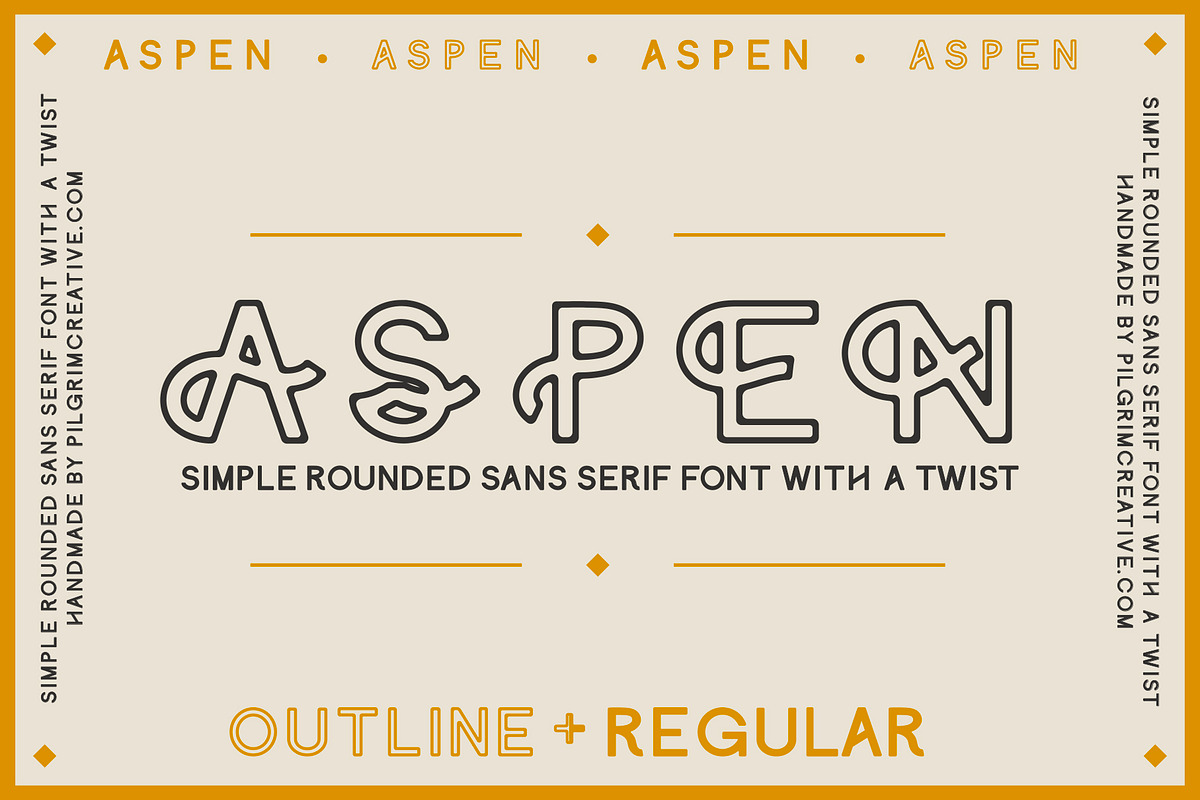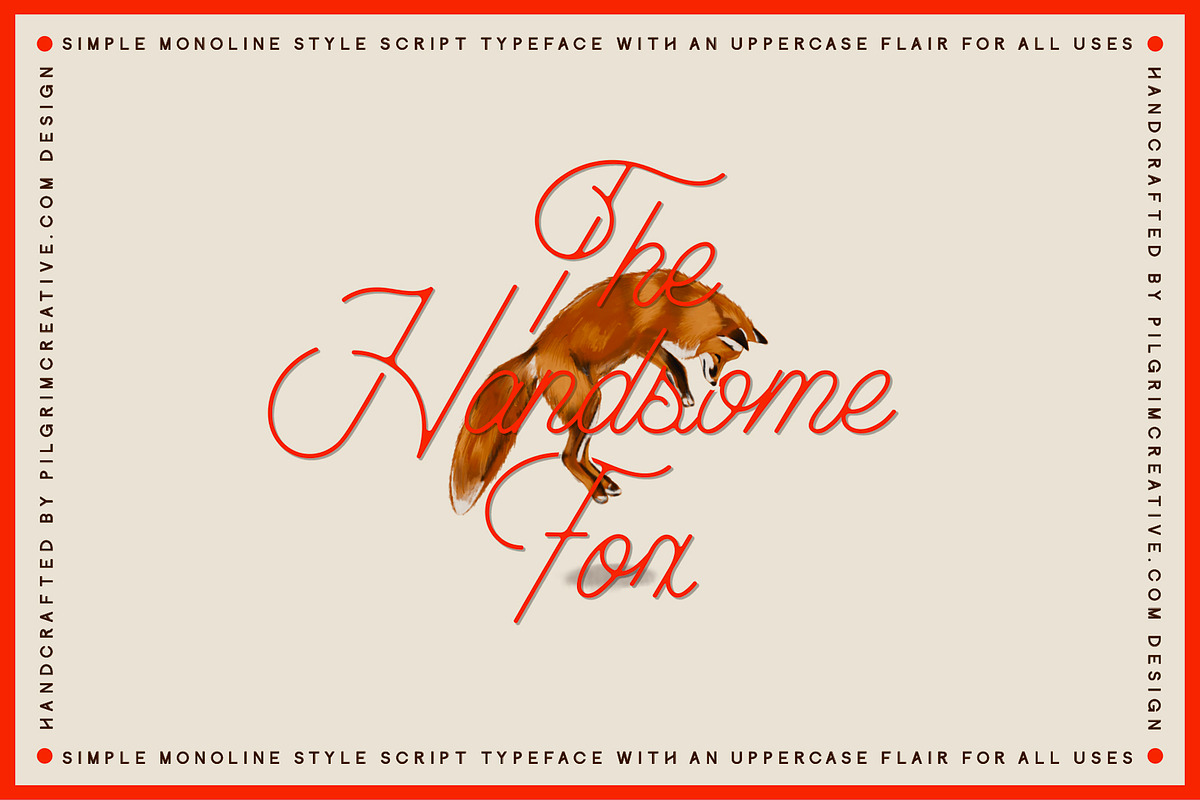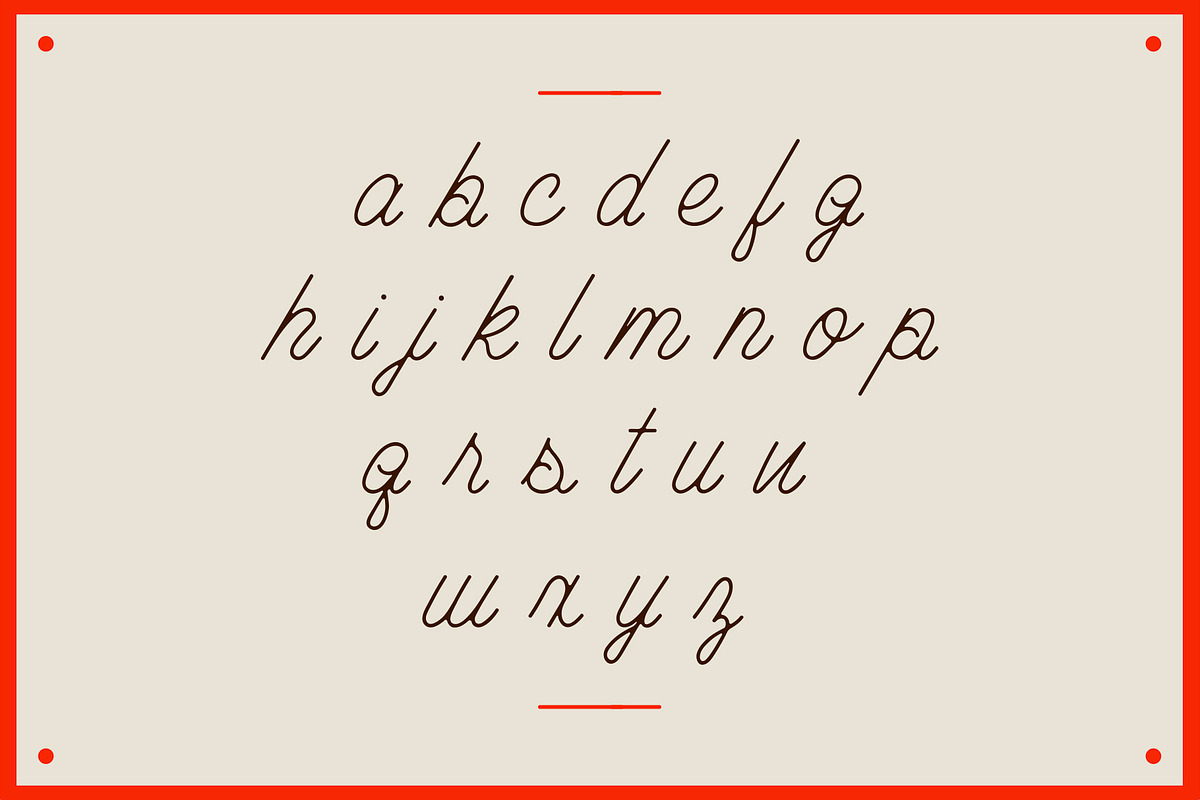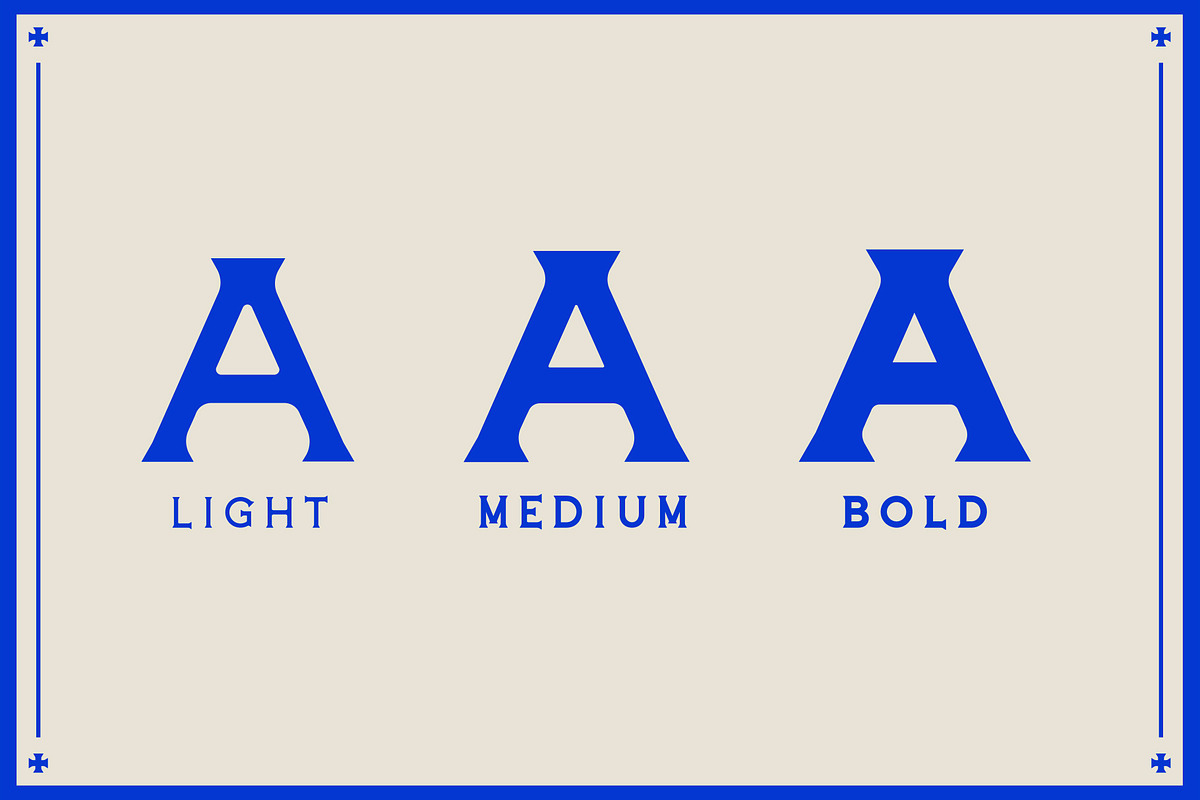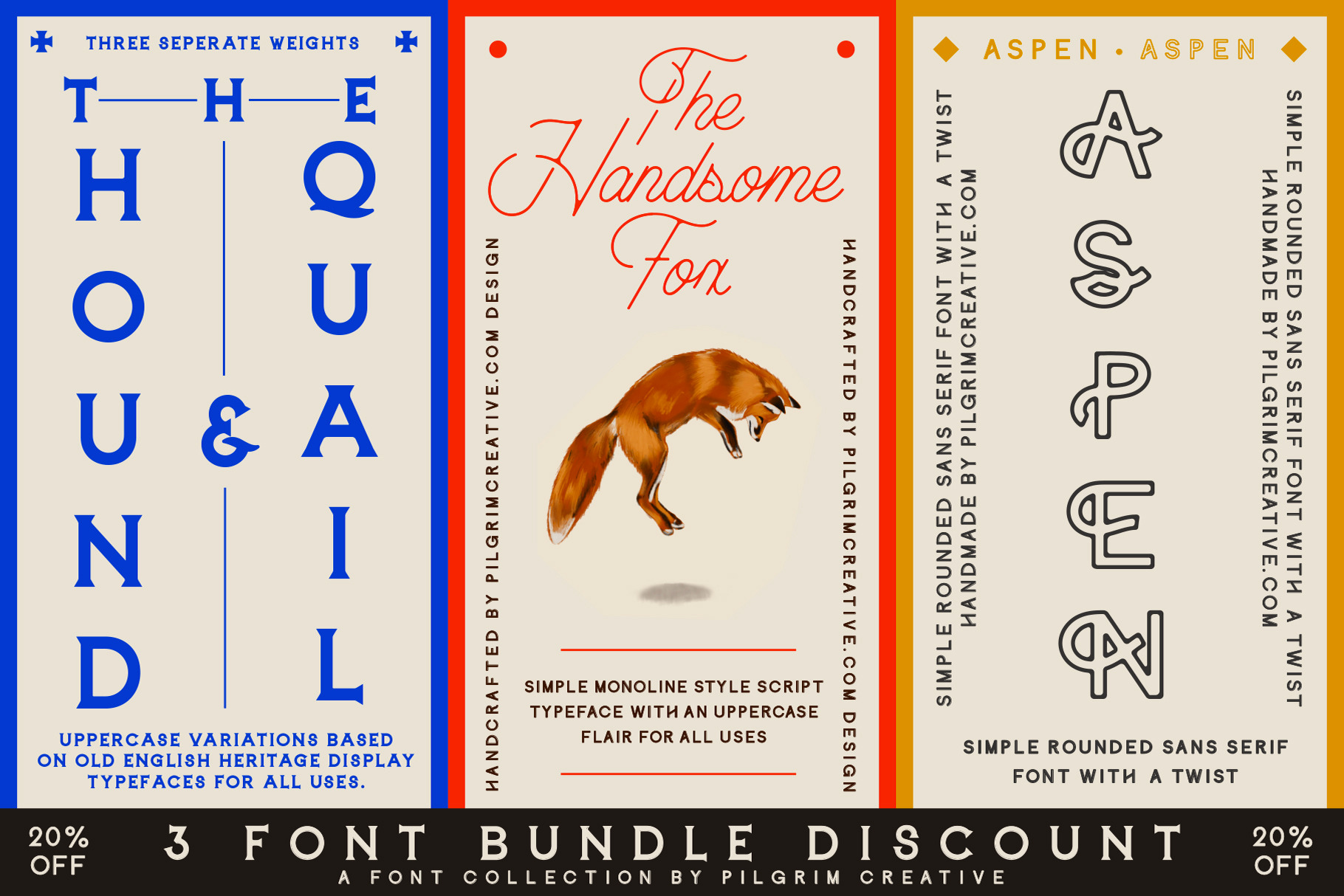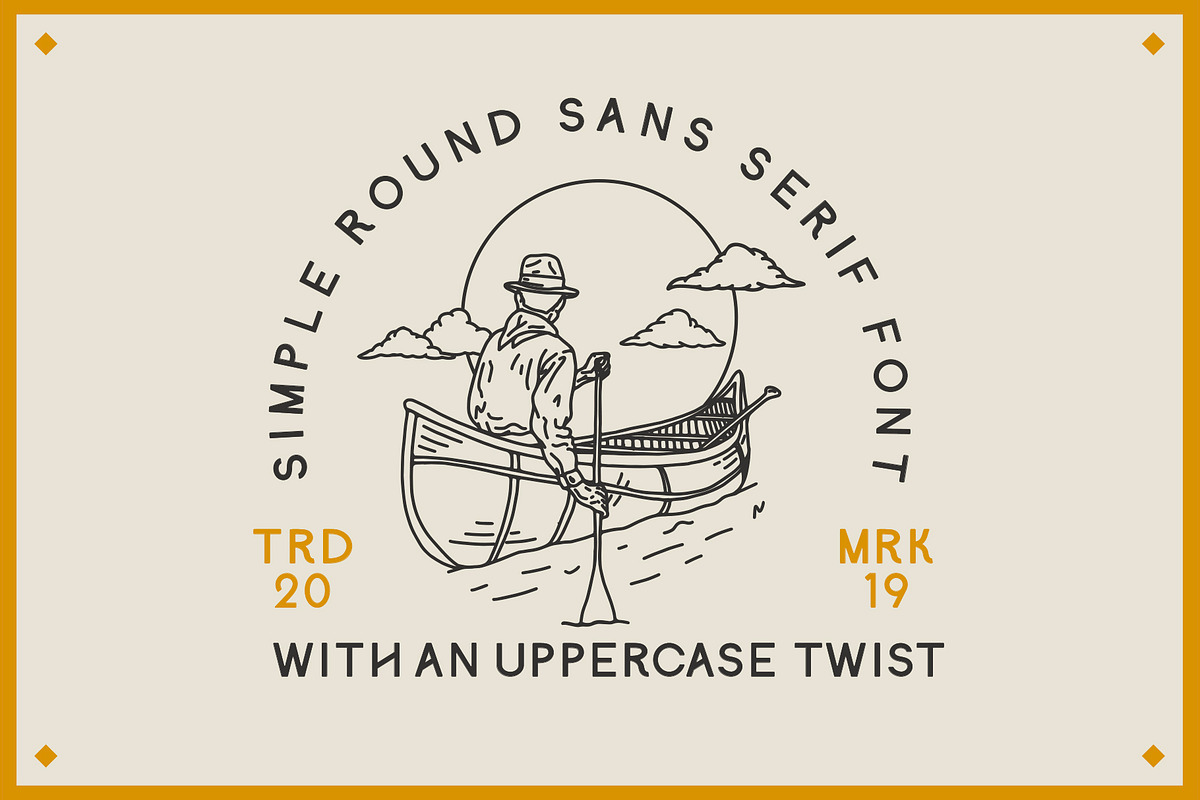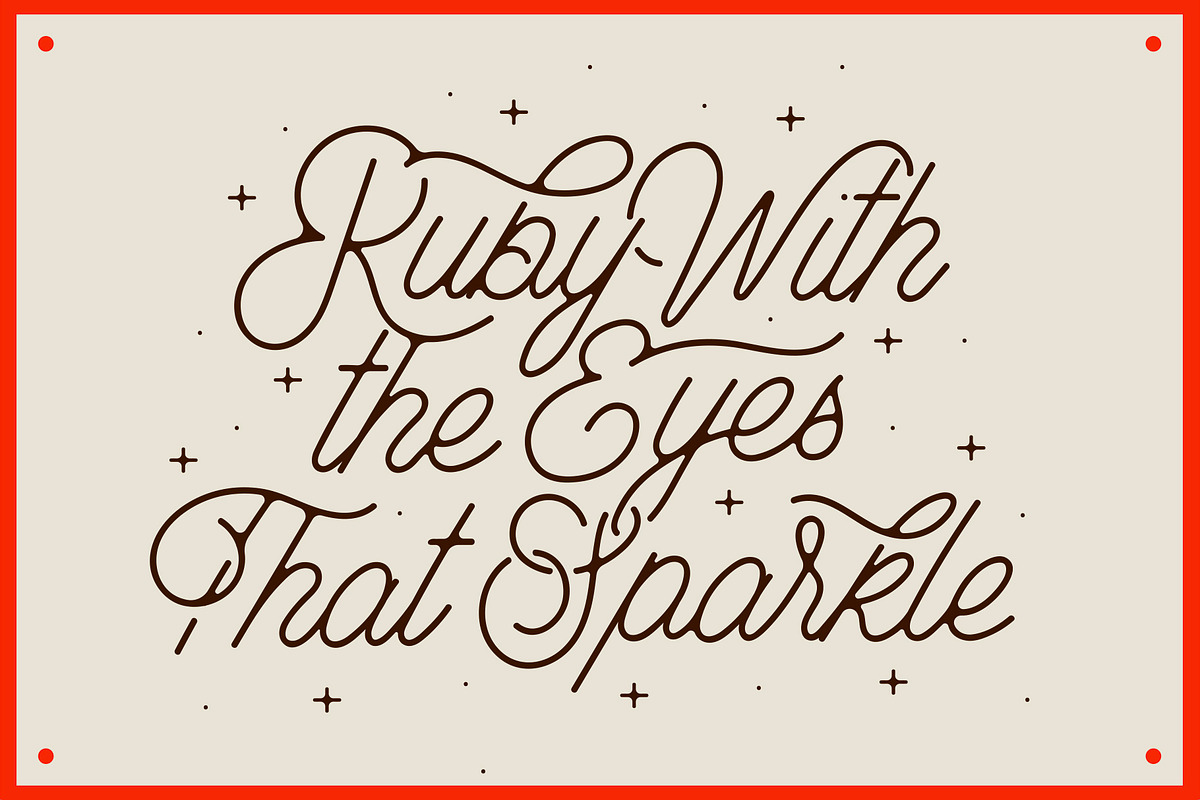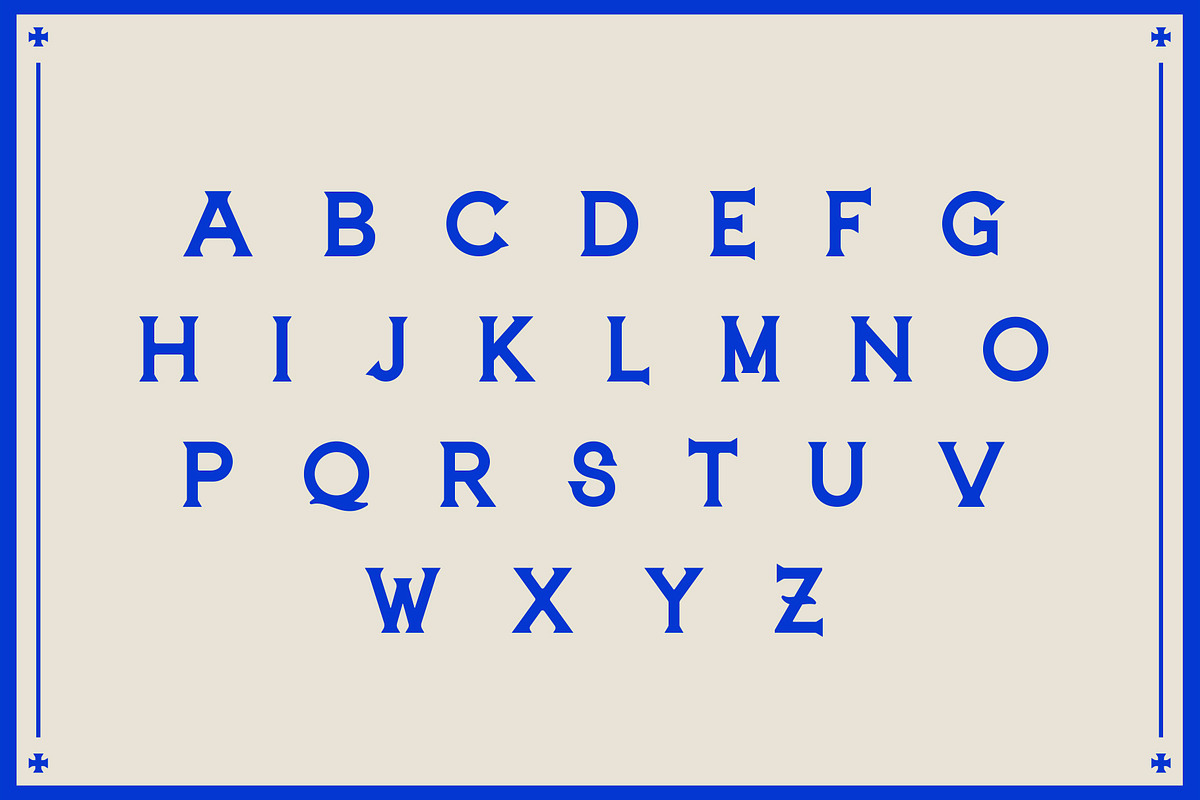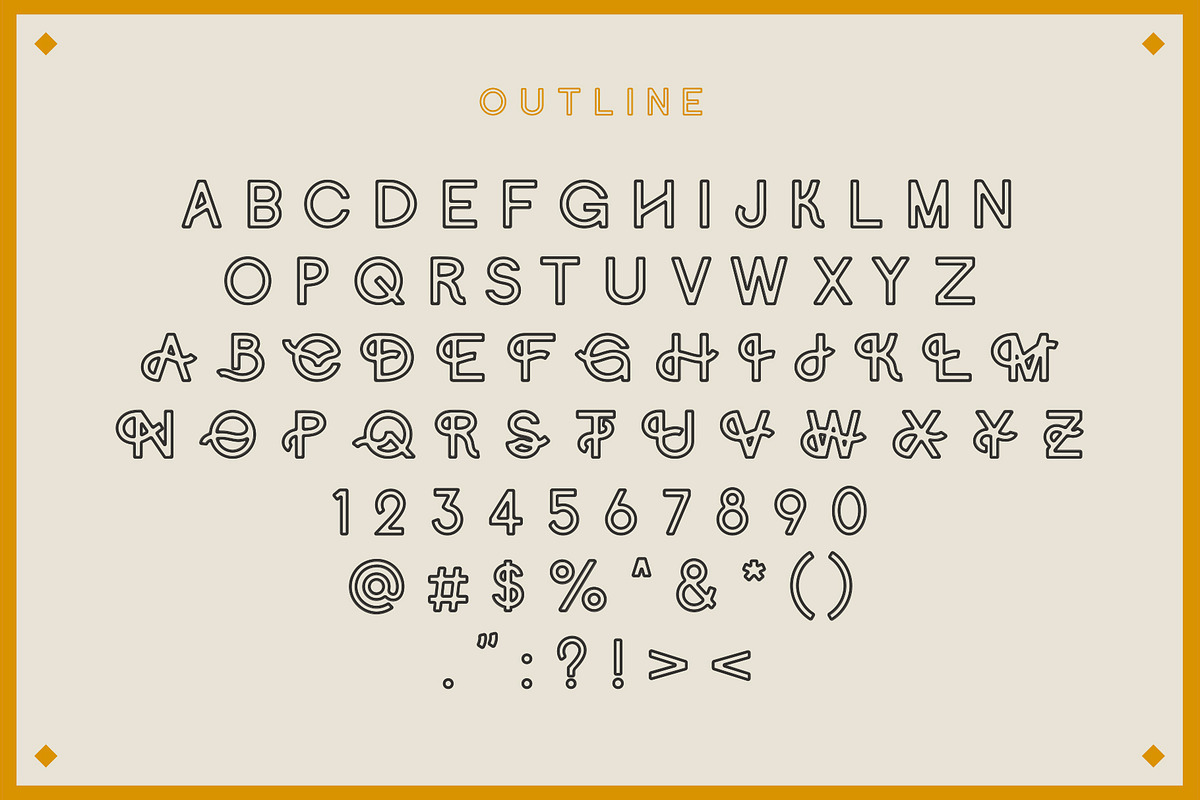
Pilgrim Font Collection Bundle
Three separate fonts for a discounted price. A serif, sans serif, and script font to fulfill any of your design needs. I hope you enjoy them as much as I enjoyed creating them.